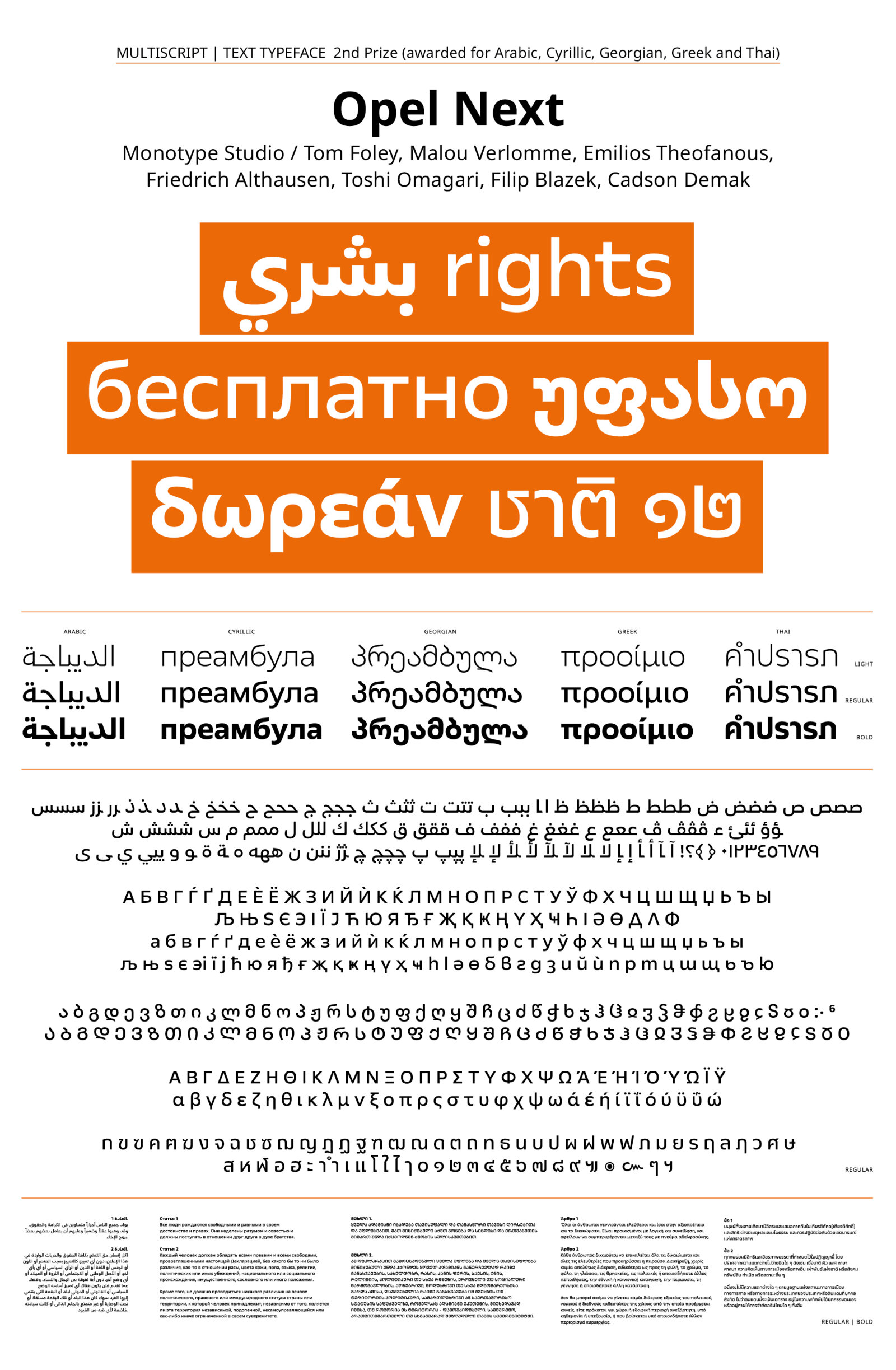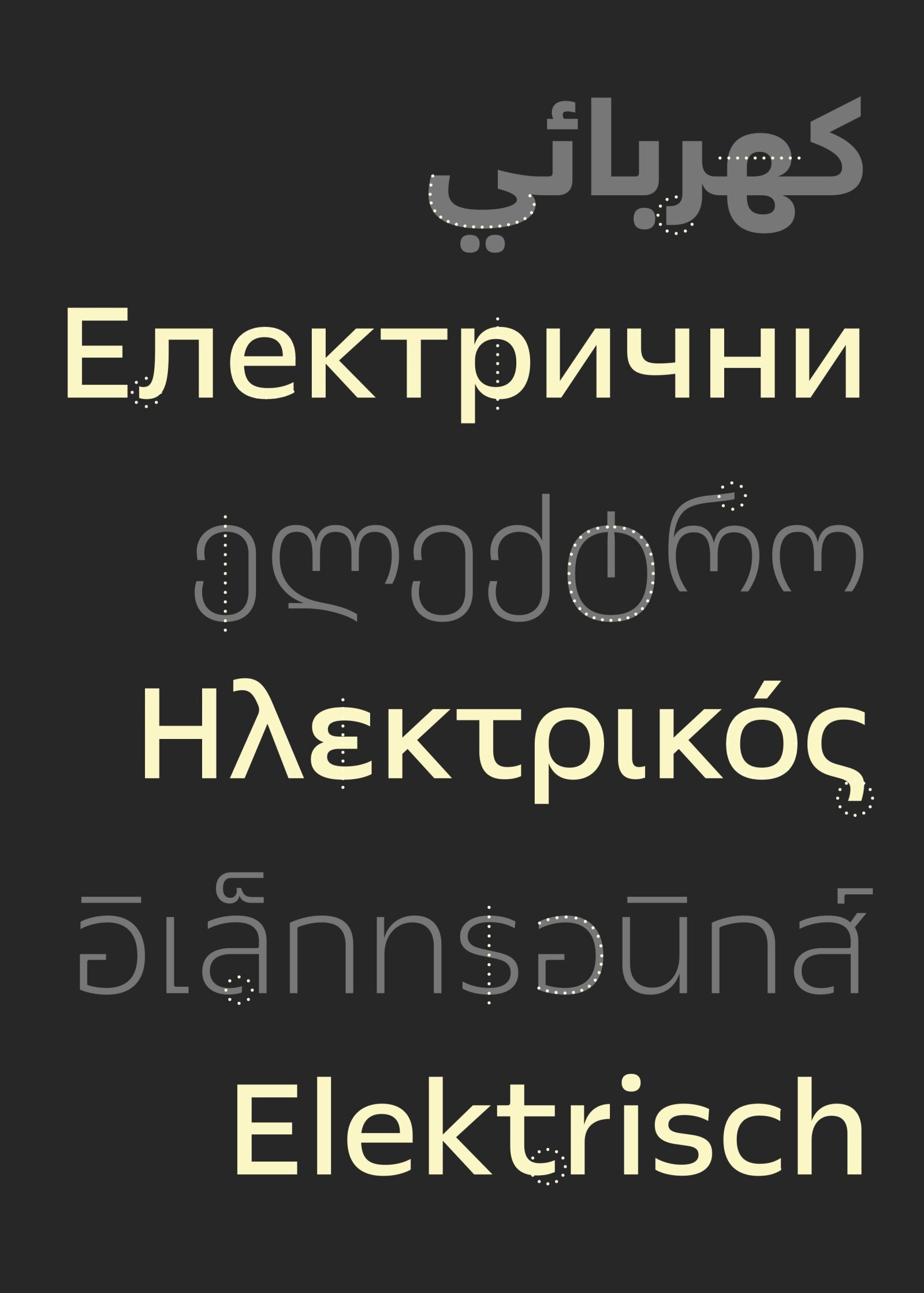
Opel Next
by Monotype Studio, Tom Foley, Malou Verlomme, Emilios Theofanous, Friedrich Althausen, Toshi Omagari, Filip Blazek, Cadson Demak
C1 Multiscript Text Typefaces
The jury awarded the prize for Arabic, Cyrillic, Georgian, Greek, Thai.
As part of a major shift to electric car production, the client needed a new brand and a new voice. This typeface is a clean and characterful sans serif typeface that embodies the brands bold move to a global outlook and an electric future – providing a consistent and recognisable voice across its global markets.